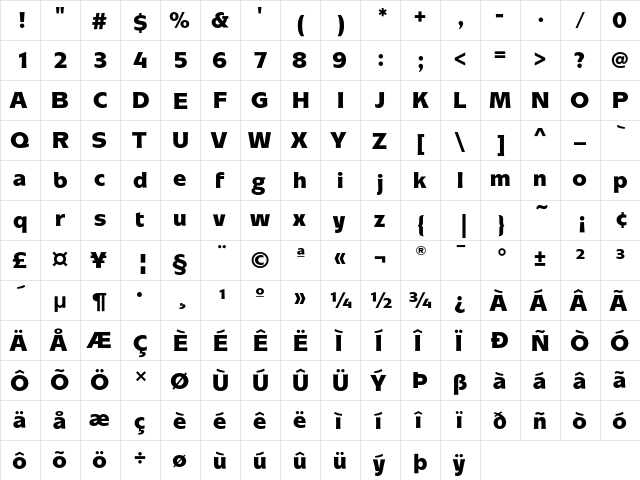
MixageEF Black
Design Context for MixageEF Typeface
MixageEF offers clean, dependable letterforms without strong stylistic allegiance, making it a practical choice for designers who need flexibility.